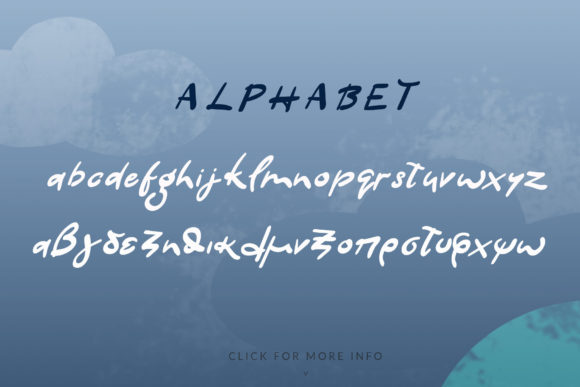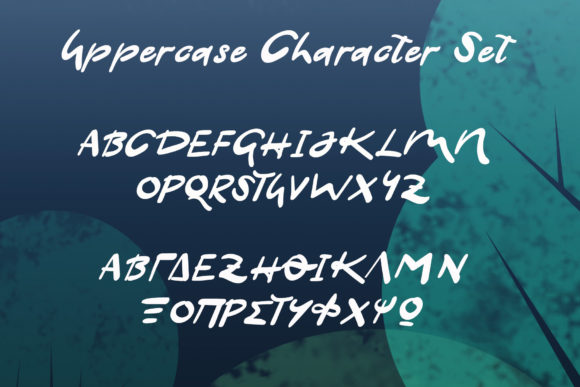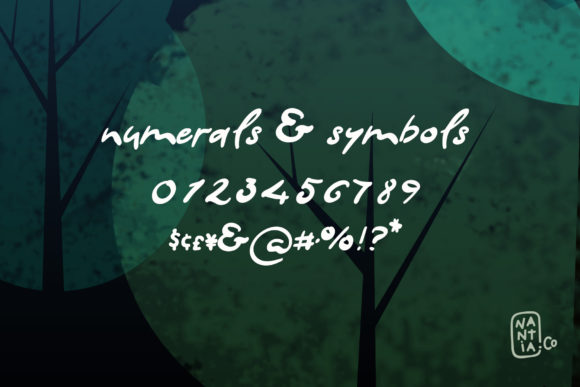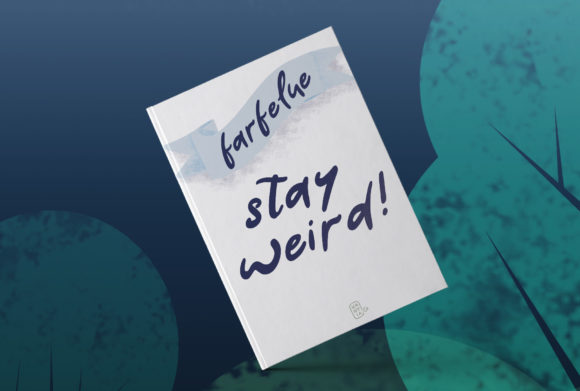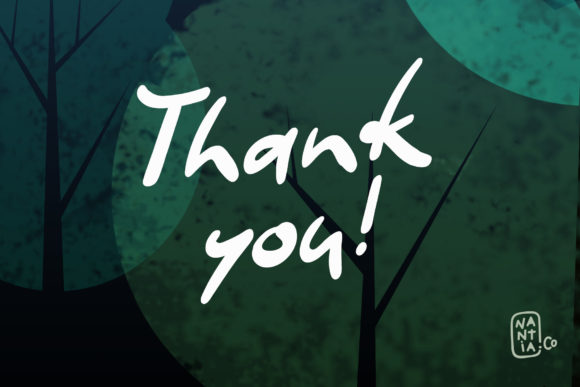
HomeScript FontsFarfelue Font Script Fonts Farfelue Font FacebookXPinterestWhatsApp Farfelue Font Poster 2 Farfelue Font Poster 3 Farfelue Font Poster 4 Farfelue Font Poster 5 Farfelue Font Poster 6 About Farfelue Font Farfelue is a fun and cool handwritten font with a modern vibe. Get inspired by its contemporary charm. DOWNLOAD NOW People also explored White Rose Font Kitty Fat Font Gratteya Script Font Merry Natalia Font Moonlight Classic Font World Pressure Font Stringlabs Creative Font Shafiqa Font Mananta Font 321 0 TagsFarfelue Font Previous articleKold FontNext articleFair Love Font LEAVE A REPLY Cancel reply Comment: Please enter your comment! Name:* Please enter your name here Email:* You have entered an incorrect email address! Please enter your email address here Website: Save my name, email, and website in this browser for the next time I comment. Personal Use Free Gila Personal Use Free Read more about this font Hello Holiday Personal Use Free Read more about this font Wallabys Junior Personal Use Free Read more about this font Dandelions Bloom Personal Use Free Read more about this font BLOG Best Fonts for YouTube Videos: Make Your Thumbnails Stand Out Best Fonts for YouTube Videos: Make Your Thumbnails Stand Out Choosing the right font can make a massive difference in how your YouTube videos perform.... Best Fonts for T-Shirt Design – Top 2025 Picks To increase your work productivity, choose the most readable fonts. Free Fonts Risk: Why Free Fonts Can Be Dangerous for Designers